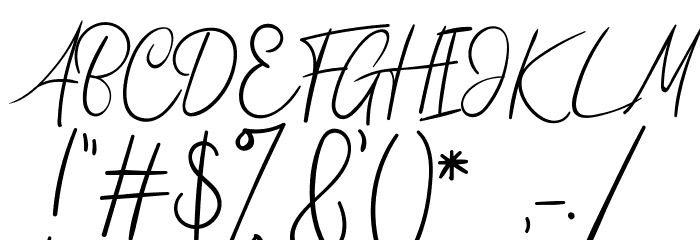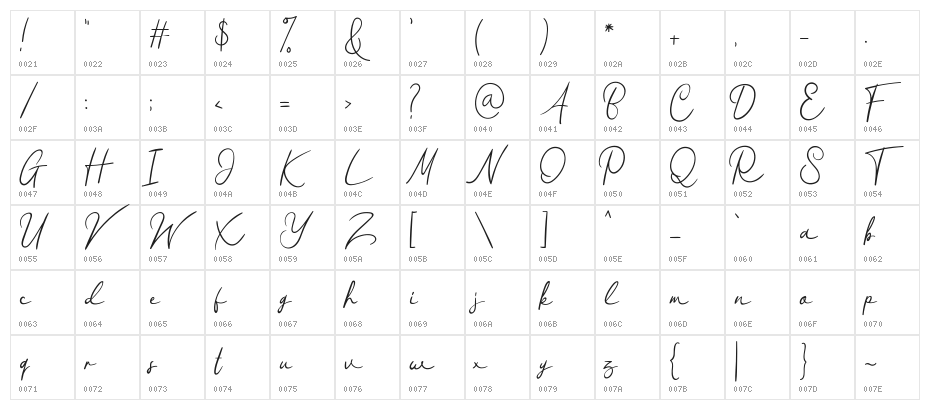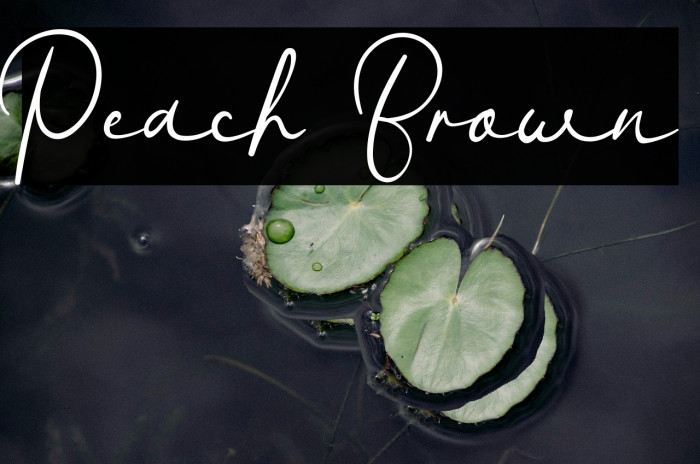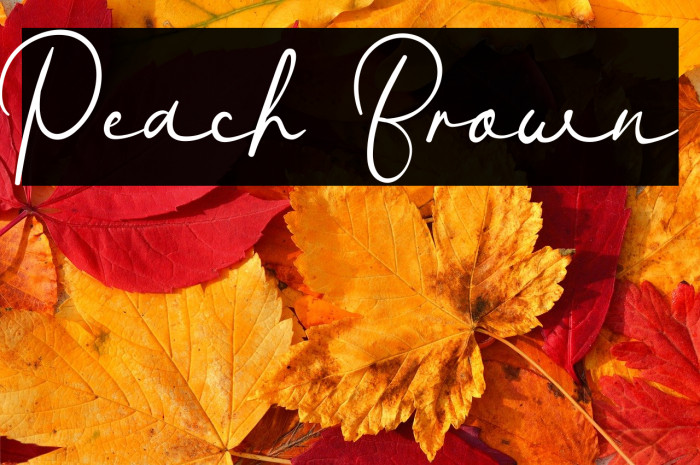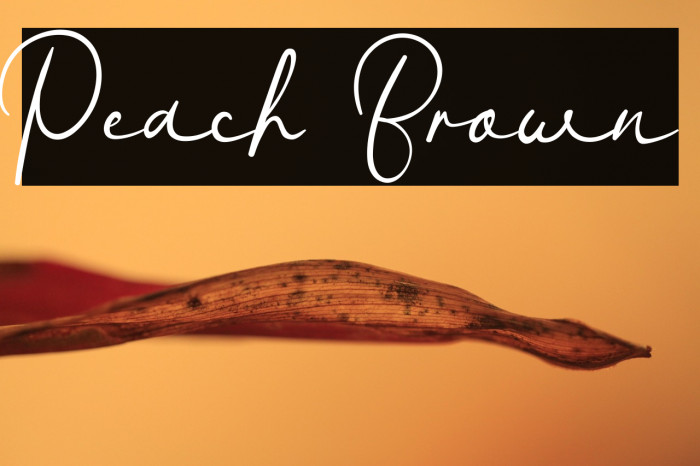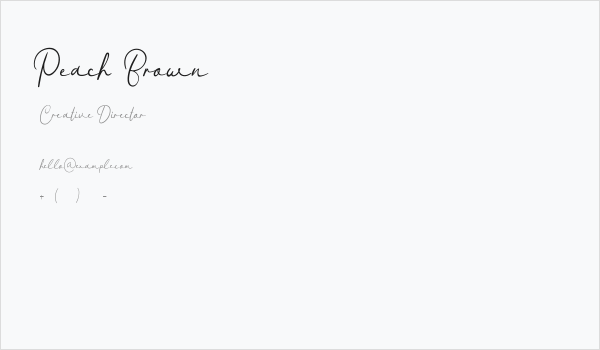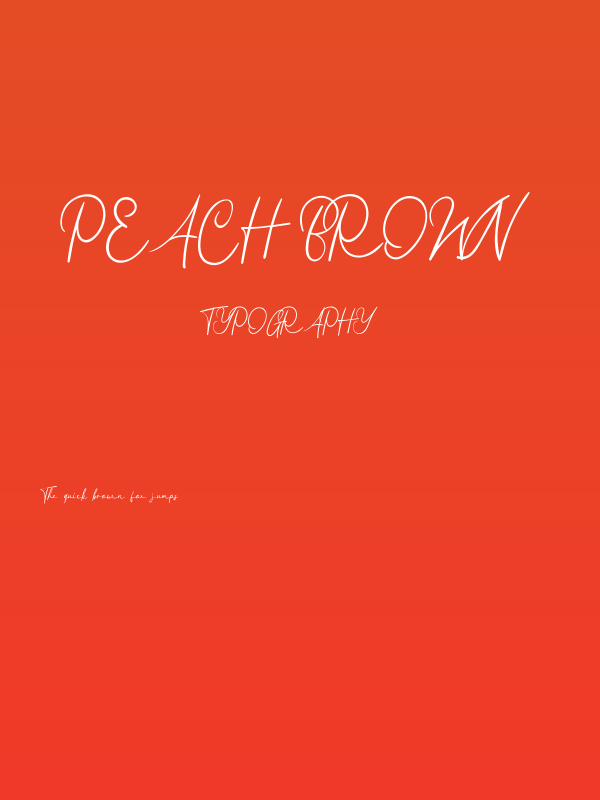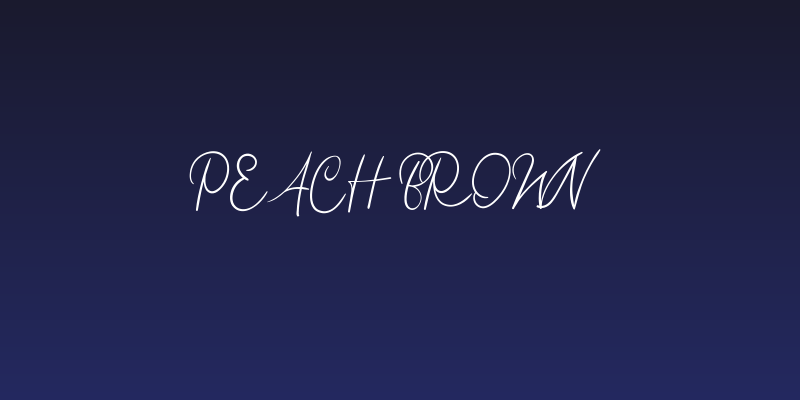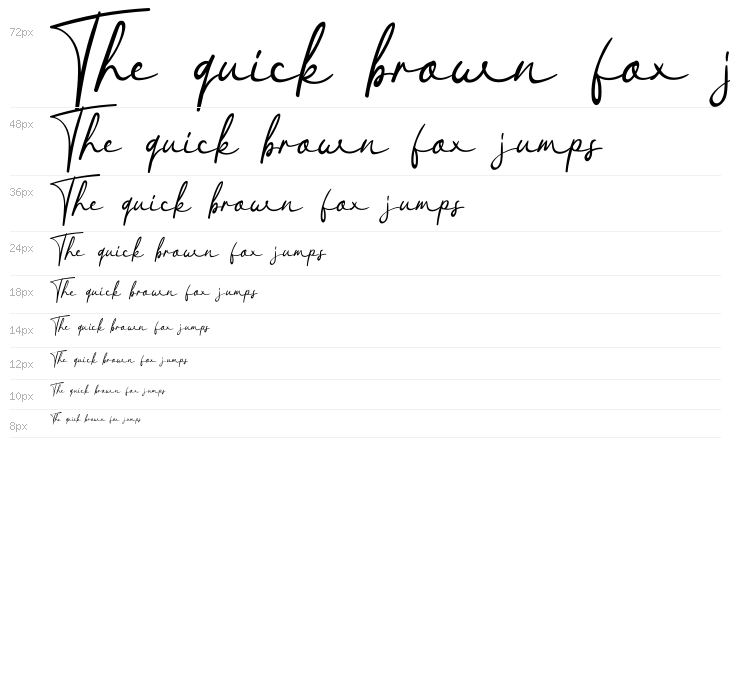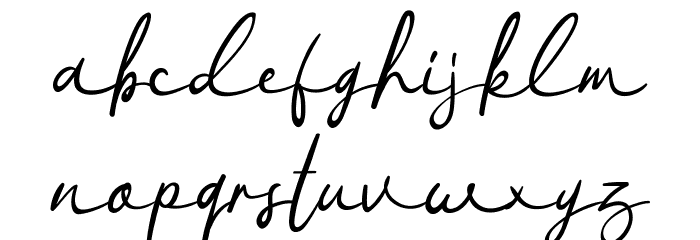
Peach Brown Font
Peach Brown Description
This font features an elegant, flowing script style with a handwritten appearance. The uppercase letters are tall and slender, with graceful curves and loops that give a sense of fluidity and motion. The lowercase letters maintain a consistent style, with smooth connections between characters, enhancing the cursive feel. The numerals and special characters are designed to match the overall aesthetic, with similar curves and loops. This font exudes a sense of sophistication and creativity, making it suitable for artistic and expressive projects.
| Overall Style | Elegant, Artistic |
| Proposed Projects | Ideal for wedding invitations, greeting cards, personal branding, and artistic projects that require a touch of elegance and personality. |